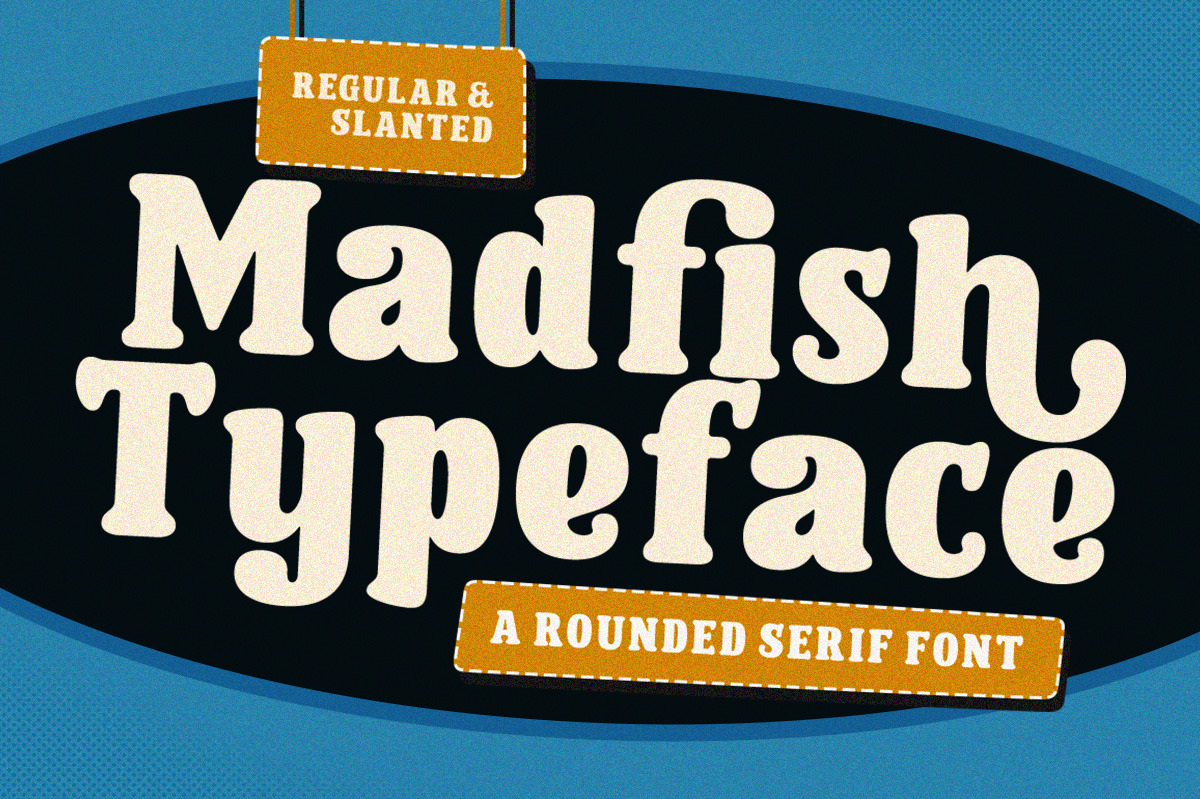
Madfish Typeface - A Rounded Serif
Introducing, Medfish Typeface is a stunning font with a unique combination of rounded serifs and bold strokes, giving it a playful yet sophisticated look. Inspired by vintage design, this font has a retro style that adds a touch of timeless elegance to any project.
- Alternates & ligatures